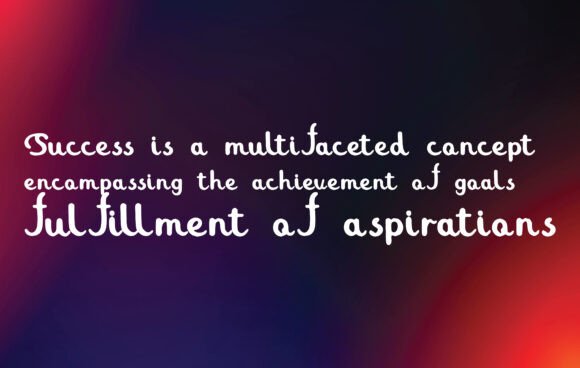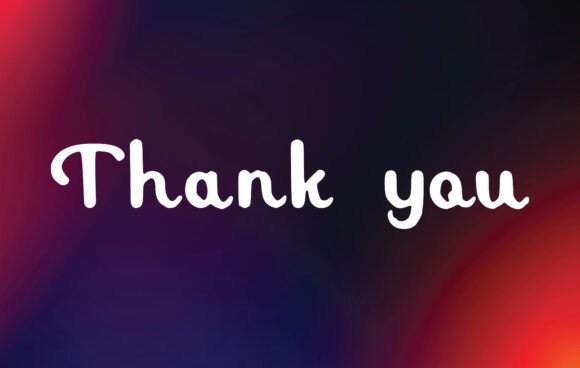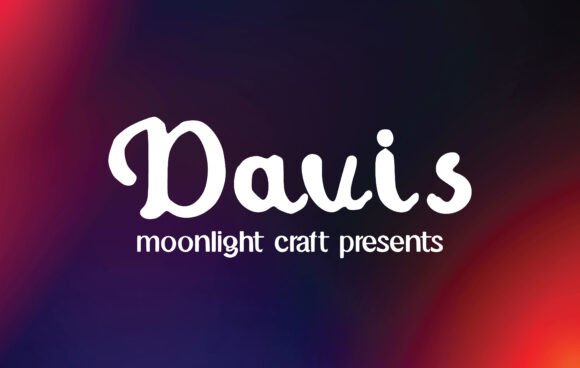
Davis Font: Elevate Your Creative Projects with a Lovely Handwritten Style
Are you a designer, crafty enthusiast, or simply someone who appreciates beautiful typography? Look no further than the Davis Font, a stunning handwritten font that can take your creative ideas to new heights. With its unique charm and versatility, Davis is the perfect choice for creating eye-catching logos, branding, and quotes that leave a lasting impression.
The Beauty of Davis Font
Davis Font is a meticulously crafted handwritten font that exudes elegance and sophistication. Its beautiful, flowing script is perfect for adding a personal touch to your designs, making them stand out from the crowd. Whether you’re working on a logo, branding project, or social media graphics, Davis Font is sure to impress.
Key Features of Davis Font
- Unique and Creative: Davis Font boasts a distinctive style that sets it apart from other fonts. Its handwritten charm adds a touch of personality to your designs, making them more relatable and engaging.
- Versatile: This font is incredibly versatile, making it suitable for a wide range of projects, from logos and branding to quotes, posters, and more.
- Elegant and Sophisticated: Davis Font features a beautiful, flowing script that adds an air of elegance and sophistication to your designs.
- Easy to Read: Despite its creative and artistic style, Davis Font remains easy to read, making it perfect for use in body text, headings, and titles.
Uses for Davis Font
Davis Font is an incredibly versatile font that can be used in a variety of creative projects. Here are some ideas to get you started:
- Logo Design: Create a memorable and impactful logo for your business or brand with Davis Font.
- Branding: Use Davis Font to develop a consistent visual identity for your brand, including business cards, letterheads, and more.
- Quotes and Posters: Add a touch of elegance and sophistication to your quotes and posters with Davis Font.
- Social Media Graphics: Use Davis Font to create eye-catching social media graphics, including Facebook posts, Instagram stories, and more.
- Wedding and Event Stationery: Add a personal touch to your wedding or event stationery with Davis Font.
Tips for Using Davis Font
To get the most out of Davis Font, here are some tips to keep in mind:
- Experiment with Font Sizes: Davis Font looks great in a variety of font sizes, so don’t be afraid to experiment to find the perfect size for your project.
- Pair with Other Fonts: Davis Font pairs well with a range of other fonts, so try combining it with other styles to create a unique look.
- Use in Combination with Images: Davis Font looks great when used in combination with images, so try incorporating it into your designs to add an extra layer of depth and interest.
In conclusion, Davis Font is a beautiful and versatile handwritten font that can elevate your creative projects to new heights. With its unique charm, elegance, and sophistication, it’s the perfect choice for designers, crafty enthusiasts, and anyone looking to add a personal touch to their designs. So why wait? Download Davis Font today and start creating stunning designs that leave a lasting impression.